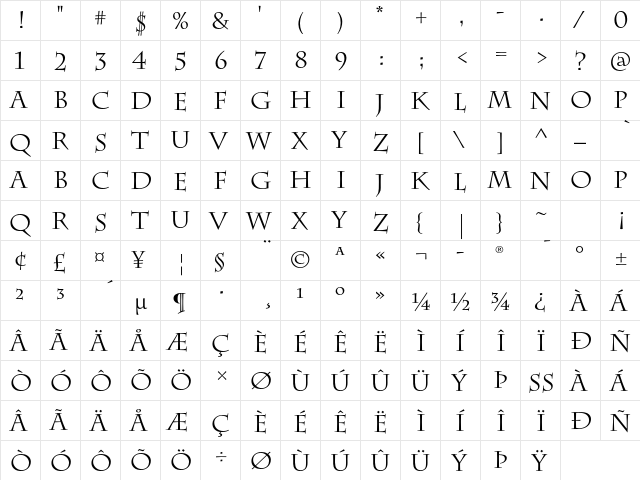
Charlemagne Std Regular
| Designer | Carol Twombly |
Design Context for Charlemagne Std Typeface
Charlemagne Std is a composed and adaptable typeface that performs quietly and consistently across a wide range of design contexts.